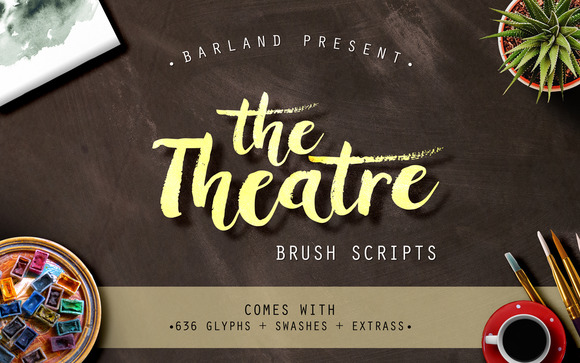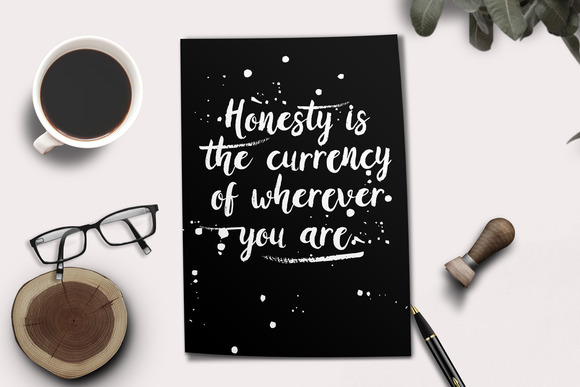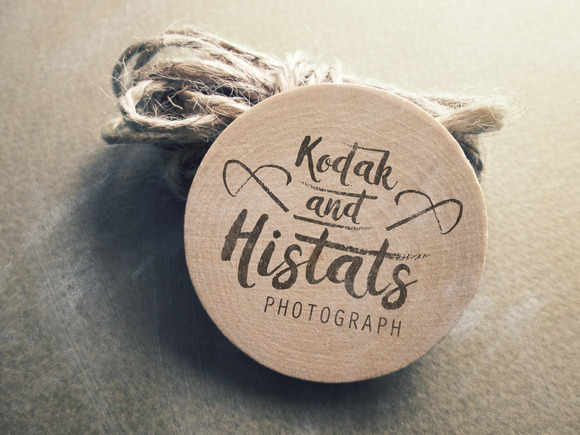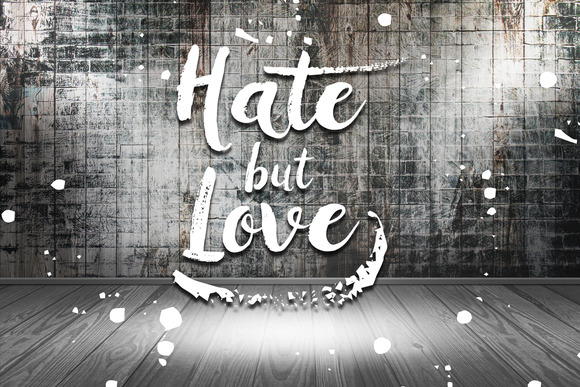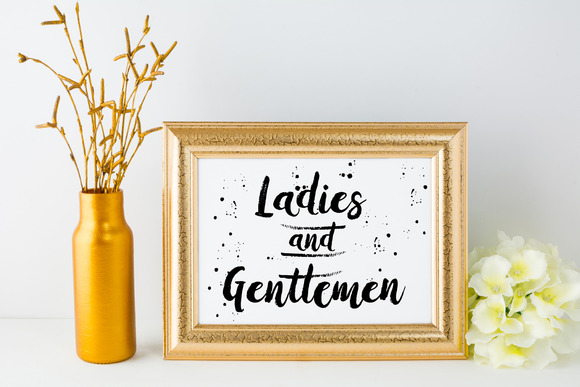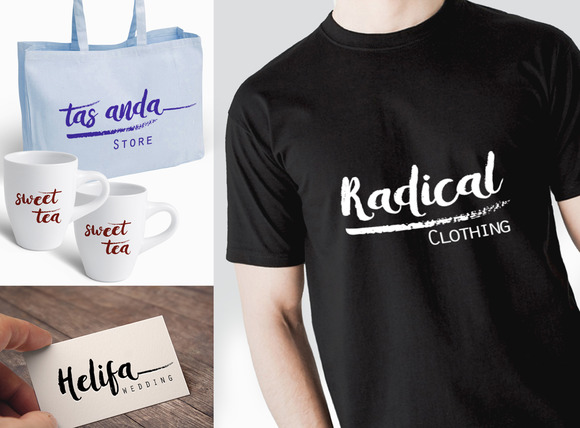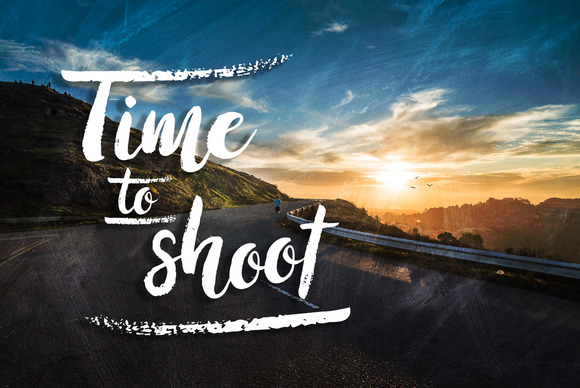
The Theatre Font
The Theatre brush is a new, elegant, brush script font. Can be used for various purposes. such as headings, logos, wedding invitations, t-shirts, letterheads, signage, labels, news, posters, badges, etc.